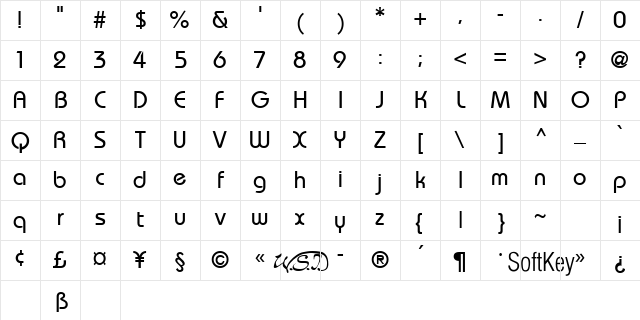
Brie Medium Regular Free Font
Brie Medium Regular
Complete Brie Medium Regular glyph index. Displaying only characters natively supported by Brie Medium Regular font.
Design Context for Brie Medium
Brie Medium is a composed and adaptable typeface that performs quietly and consistently across a wide range of design contexts.